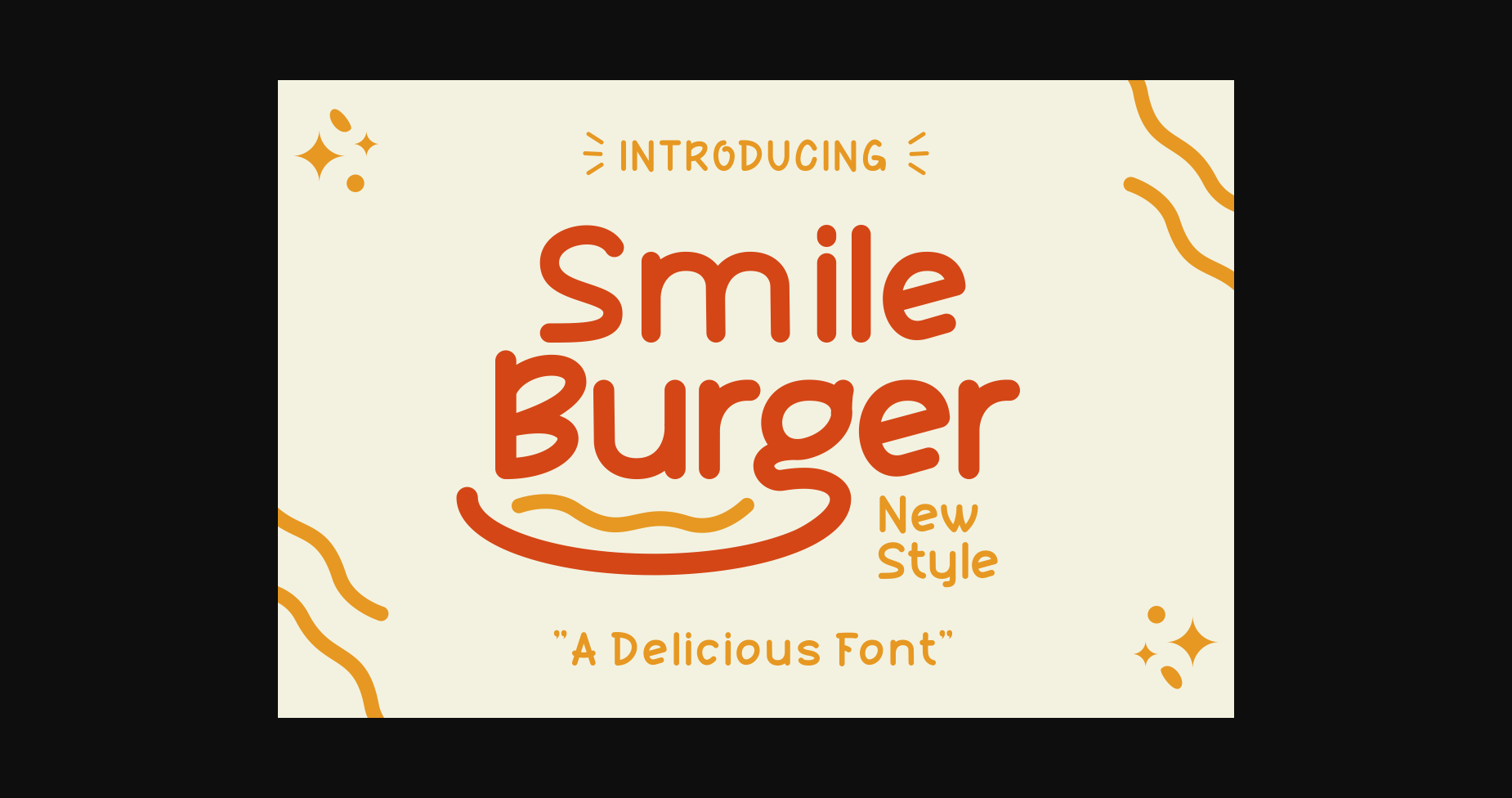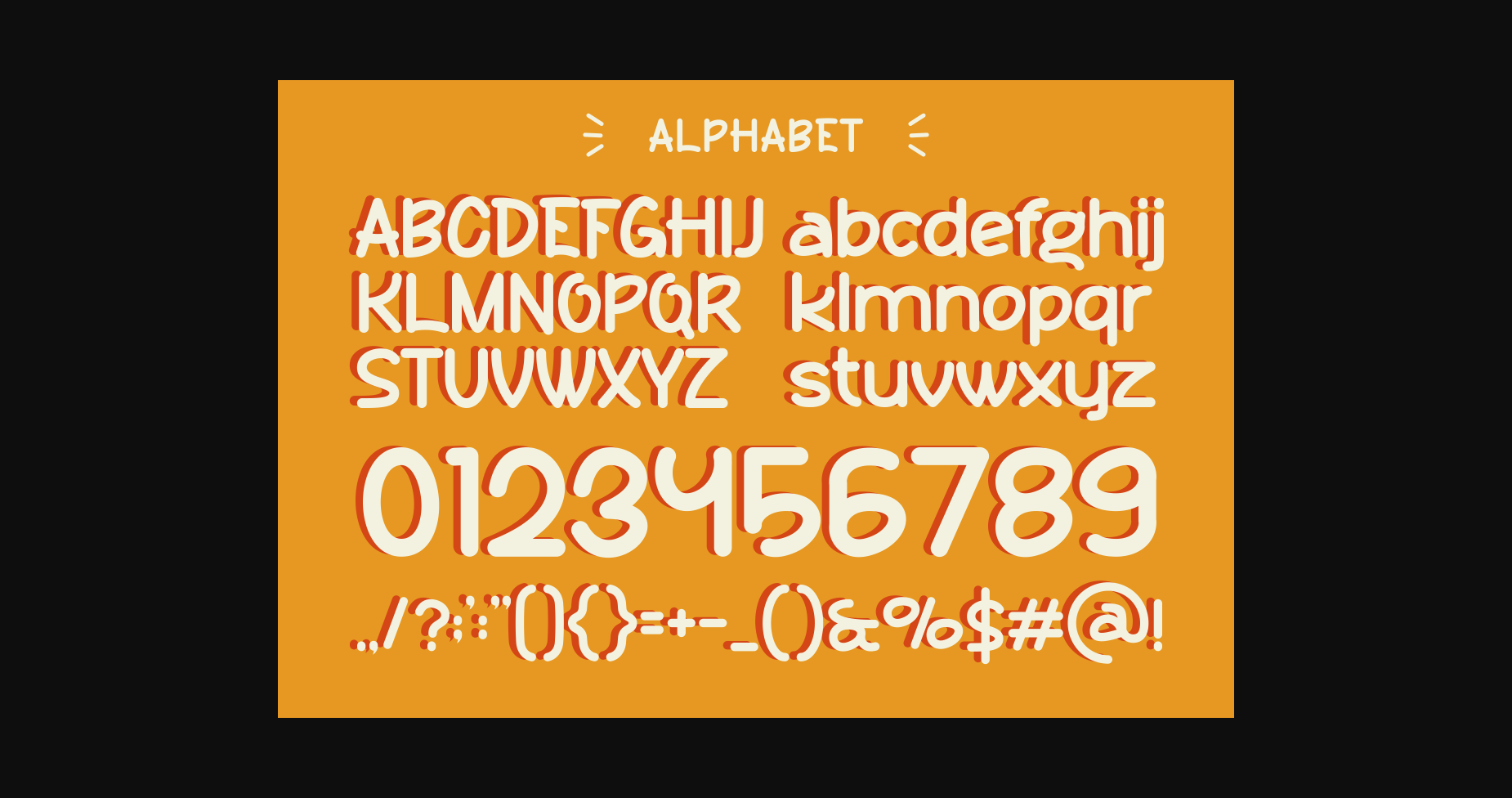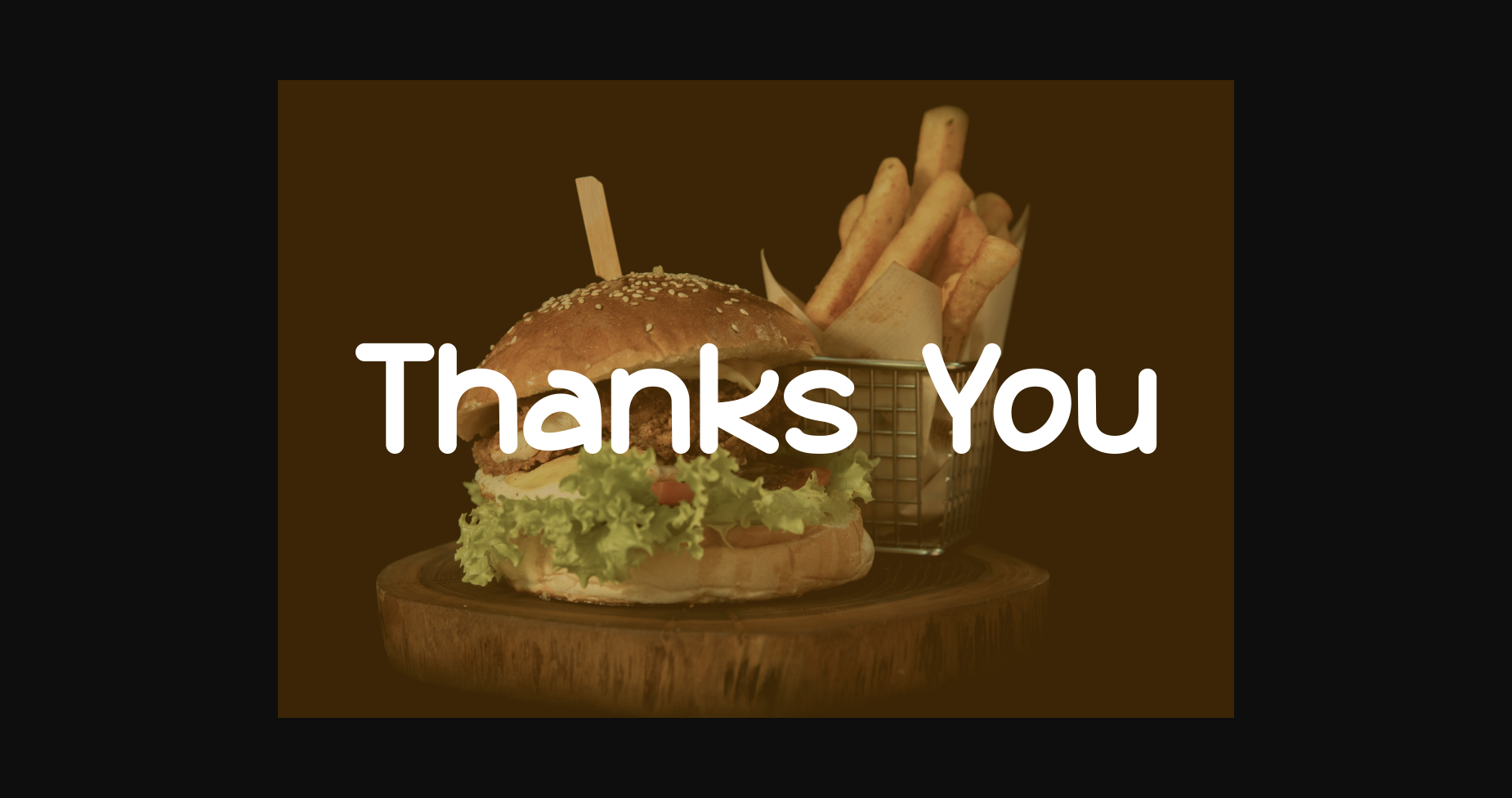
HomeSans Serif FontsSmile Burger Font Sans Serif Fonts Smile Burger Font FacebookXPinterestWhatsApp 1 of 5 ... Smile Burger Font Poster 2... Smile Burger Font Poster 3... Smile Burger Font Poster 4... Smile Burger Font Poster 5... About Smile Burger Font Smile Burger is a fresh and neat sans serif font. No matter the topic, this font will be an incredible asset to your fonts’ library, as it has the potential to elevate any creation. DOWNLOAD NOW People also explored Pineapple Font Simple Signature Font Valentines Font Glaschu Font Winterhome Font Play Book Font Juliane Font Beauty Victoria Font Branches Font 624 0 TagsSmile Burger Font Previous articleIndy Typewriter FontNext articleEnuy Condensed Font LEAVE A REPLY Cancel reply Comment: Please enter your comment! Name:* Please enter your name here Email:* You have entered an incorrect email address! Please enter your email address here Website: Save my name, email, and website in this browser for the next time I comment. Personal Use Free Anti Personal Use Free Read more about this font Miss Love Personal Use Free Read more about this font BD RatterBit Personal Use Free Read more about this font Boby Personal Use Free Read more about this font BLOG How to Cut Any Font on Cricut: Convert a Font to SVG (Free) Turn any font into a clean SVG so it cuts crisp on Cricut - a quick 3-step workflow using a free font-to-SVG tool. Where to Buy American Fonts Online in 2024 Top 7 Google Fonts Alternatives for Faster and Privacy-Friendly Web Design (2025) Exploring Font Trends